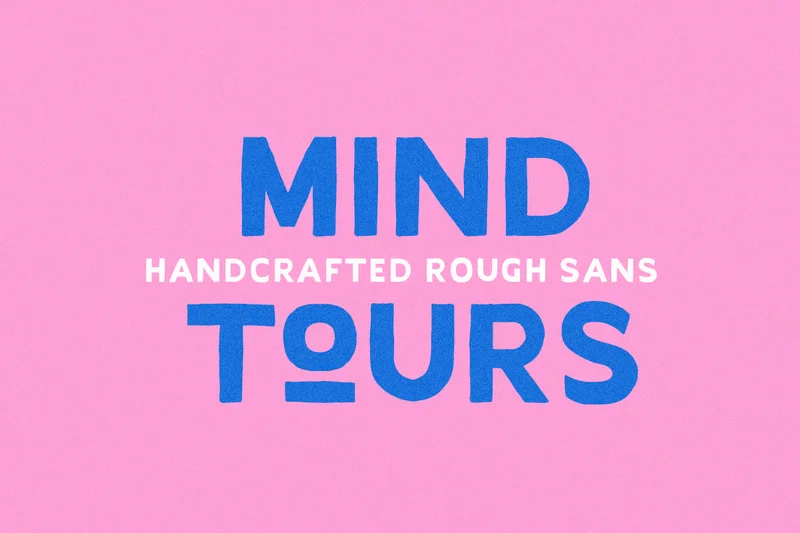
Mind Tours – Handcrafted Sans
Mind Tours is a handcrafted sans with organic, rough, and personal touch. You can use this fonts for many purposes such as logotype, quotes or any projects that require handmade looks. With different uppercase and lowercase, you can choose what you want or combine them in a word. And you will get OTF/TTF file that you can install and use in any software designs especially Adobe Photoshop and Adobe Illustrator. This fonts also support multi language!